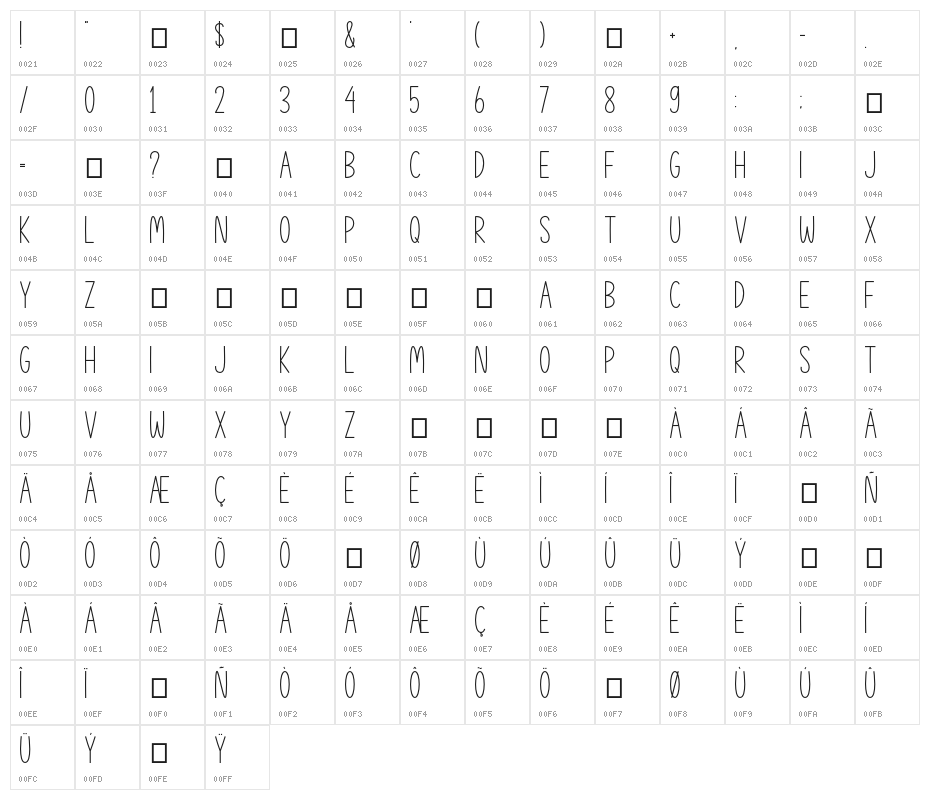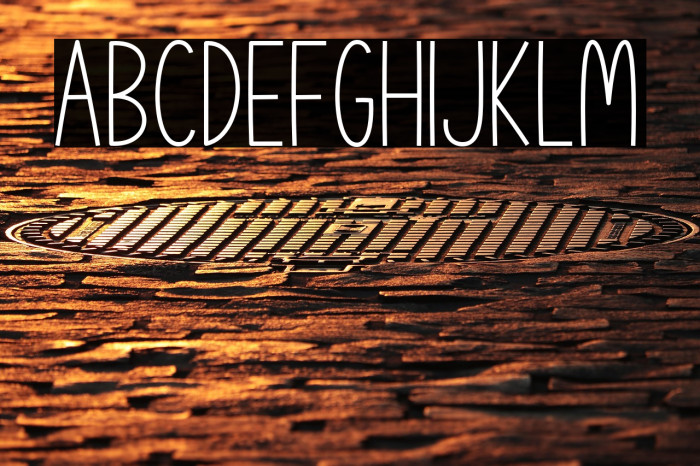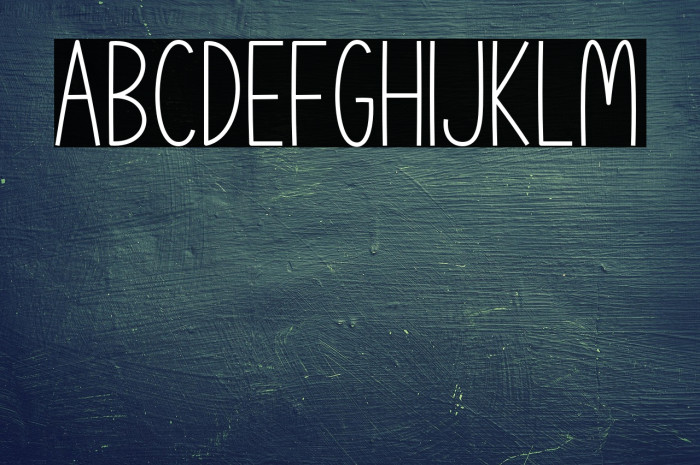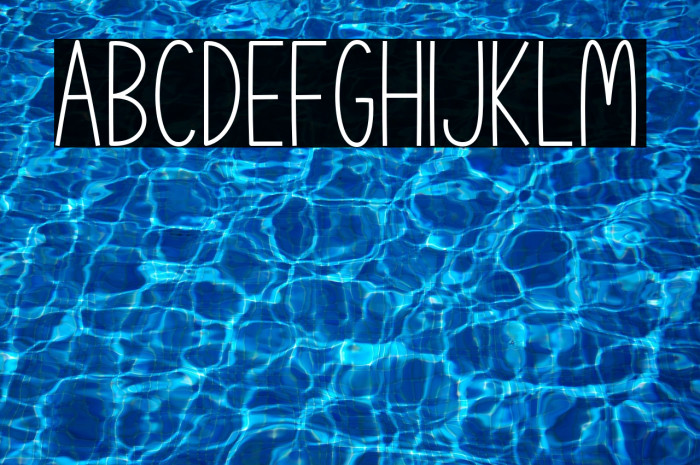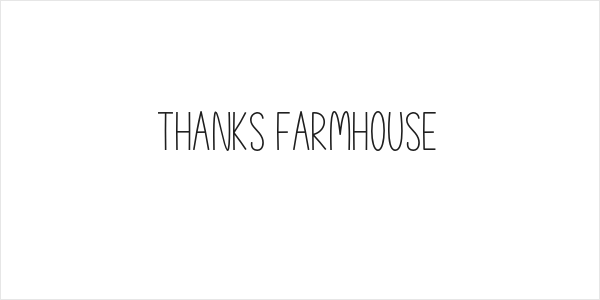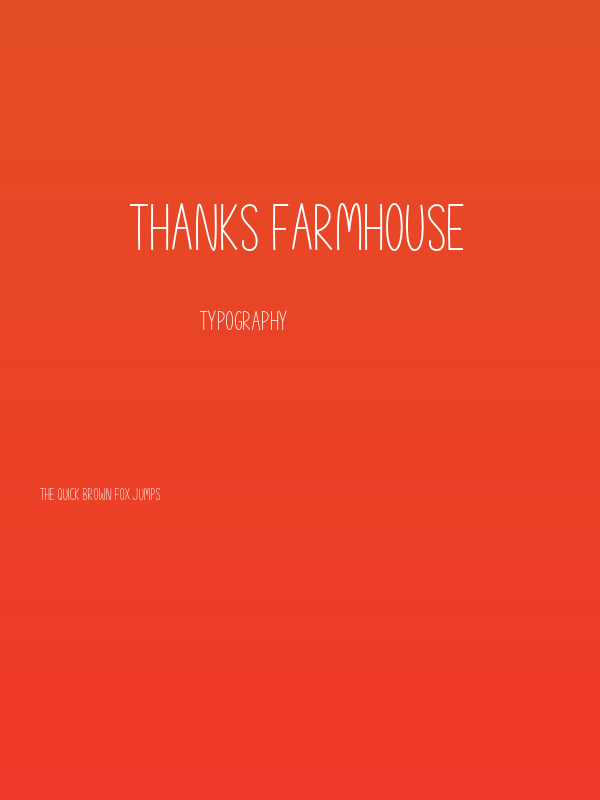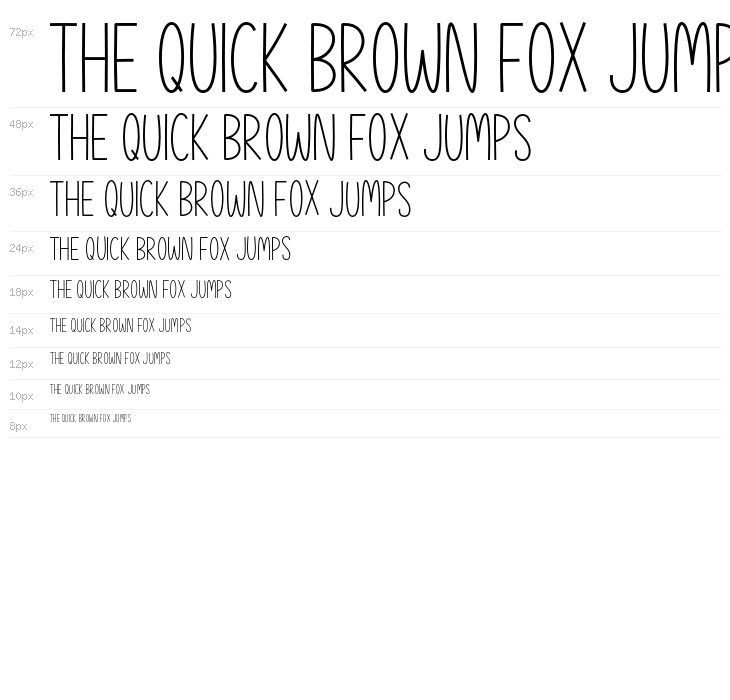
Thanks Farmhouse Font
Thanks Farmhouse Description
This font features a charming, handwritten style with tall, narrow letters that convey a sense of simplicity and warmth. The characters are evenly spaced, with a consistent stroke width that gives it a clean and approachable appearance. The uppercase and lowercase letters maintain a cohesive look, while the numerals and special characters complement the overall design. Its playful yet elegant style makes it suitable for a variety of creative projects.
Use CaseLogos, Headlines, Invitations
Proposed ProjectsIdeal for farmhouse-themed designs, wedding invitations, greeting cards, and rustic branding projects.